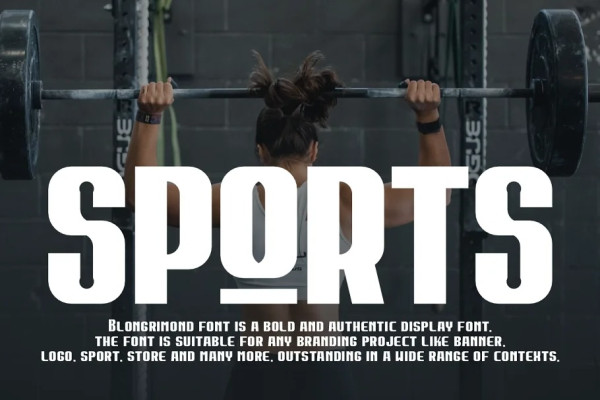
Blongrimond Font
Blongrimond Font is a bold and authentic display font. The font is suitable for any branding project like logo, sport, and many more. Outstanding in a wide range of contexts.